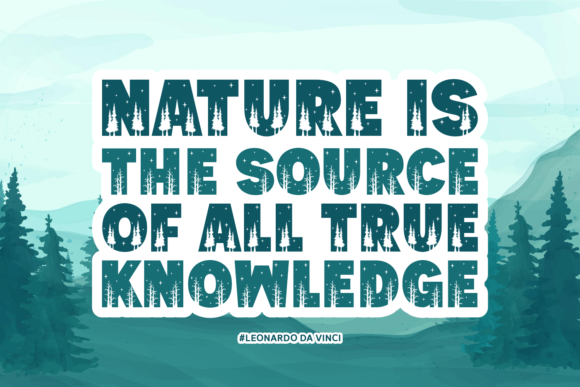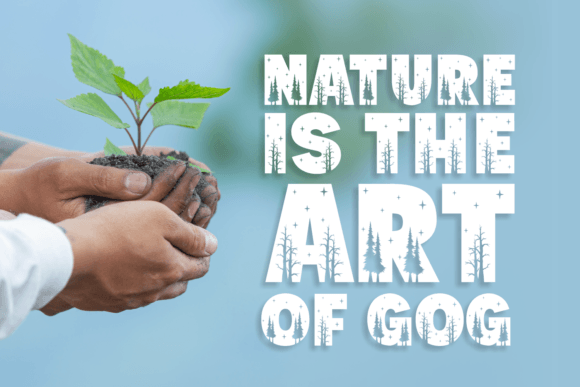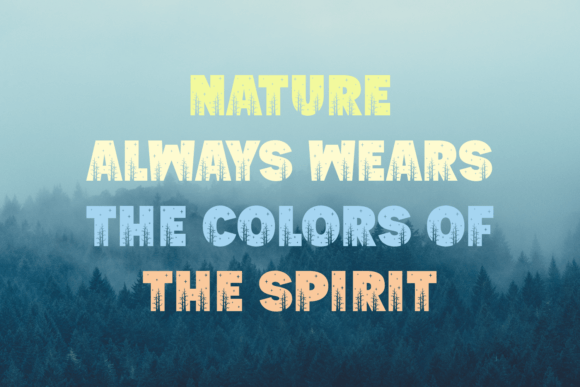
Introduction to Nice Realm Font
Nice Realm is a decorative font that transports you to a serene and picturesque landscape with its intricate mountain tree pattern.
Each letter is meticulously crafted with detailed illustrations of mountains and trees, evoking the tranquil beauty of nature The font exudes a sense of calm and serenity, inviting viewers to immerse themselves in the peaceful realm it creates.
Key Features of Nice Realm Font
Why Choose Nice Realm Font?